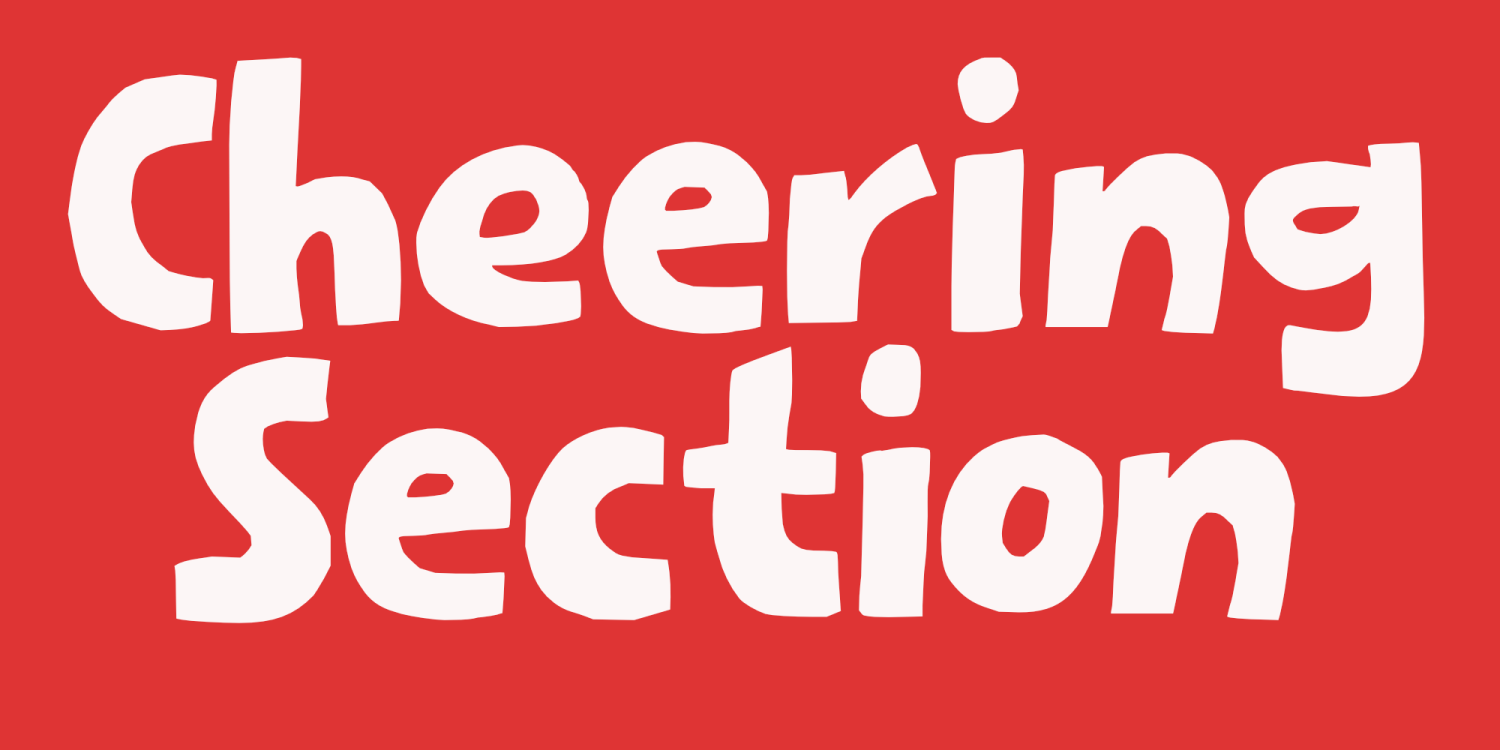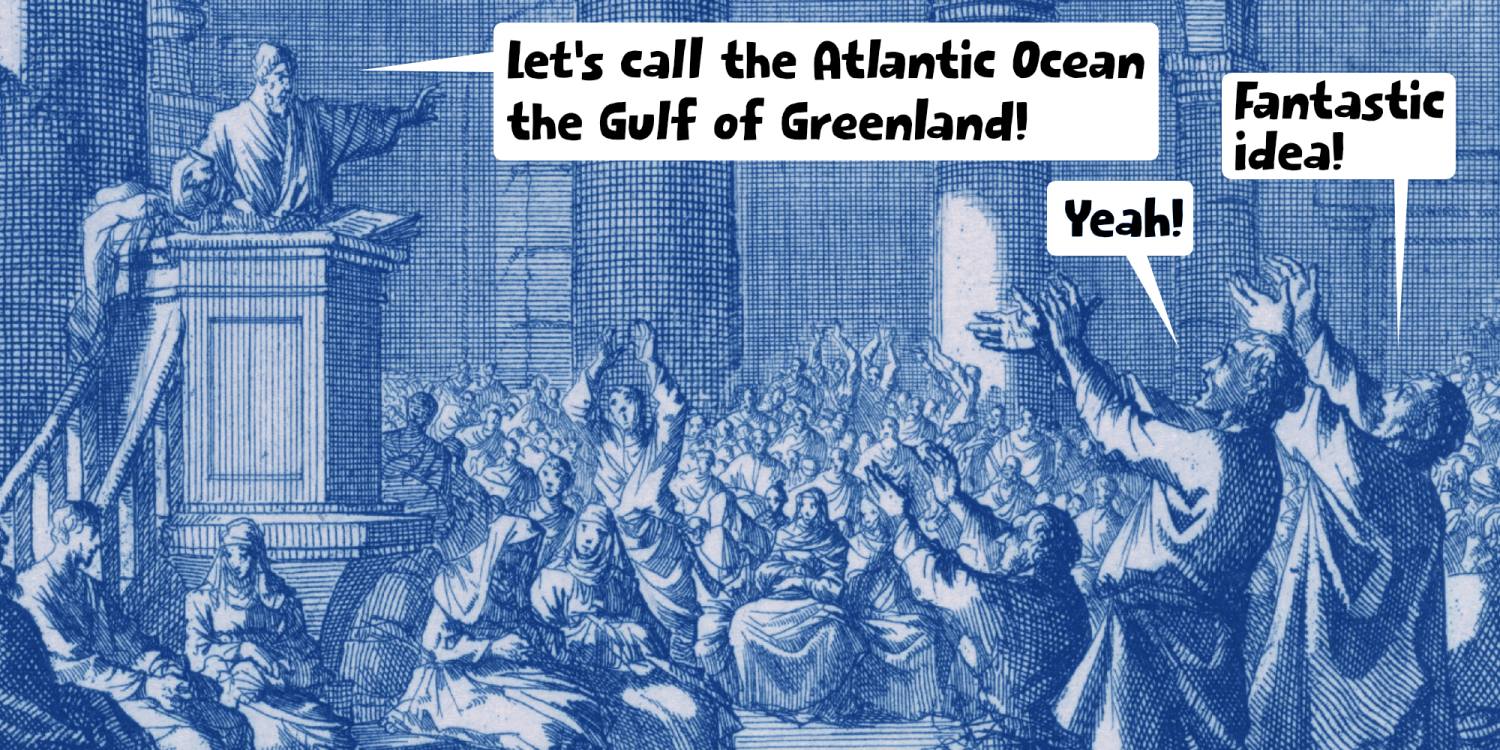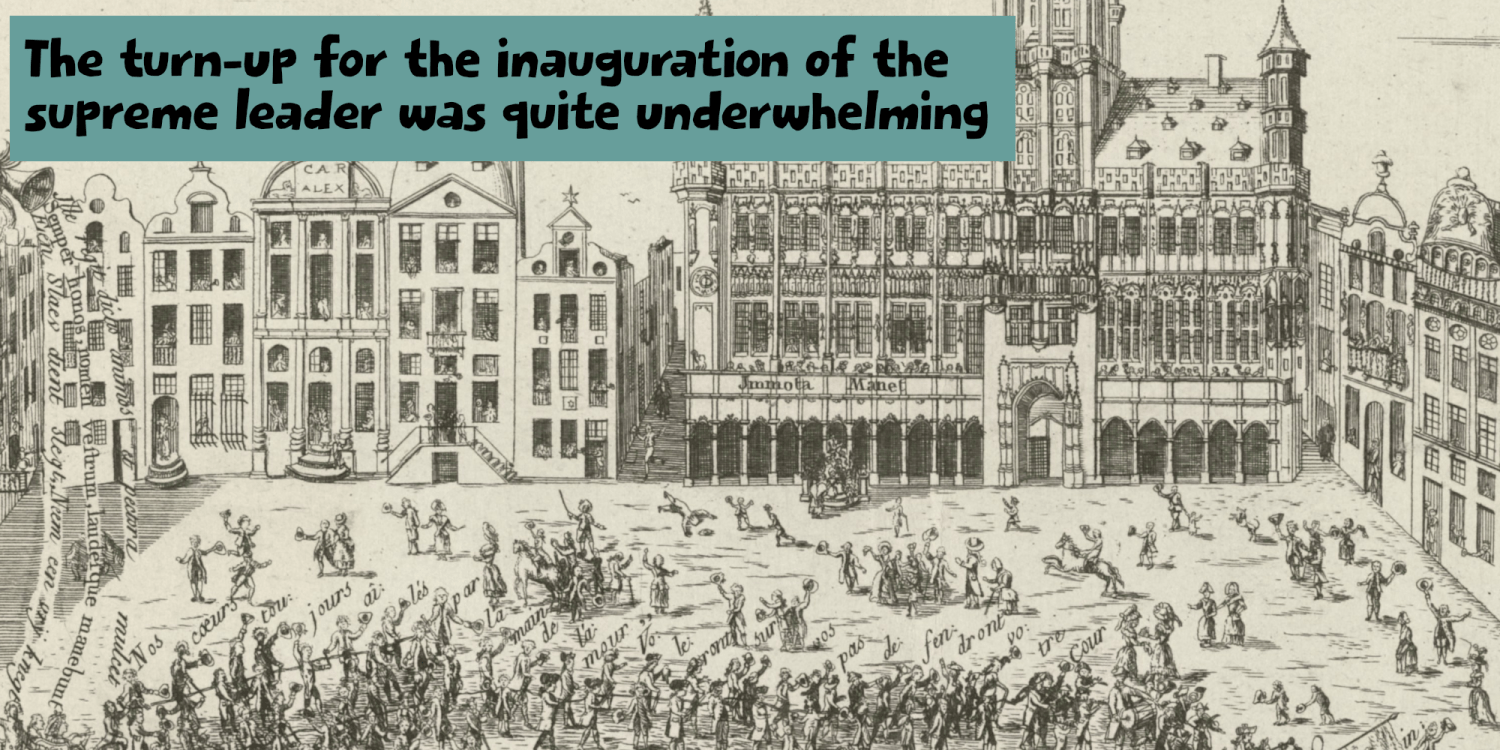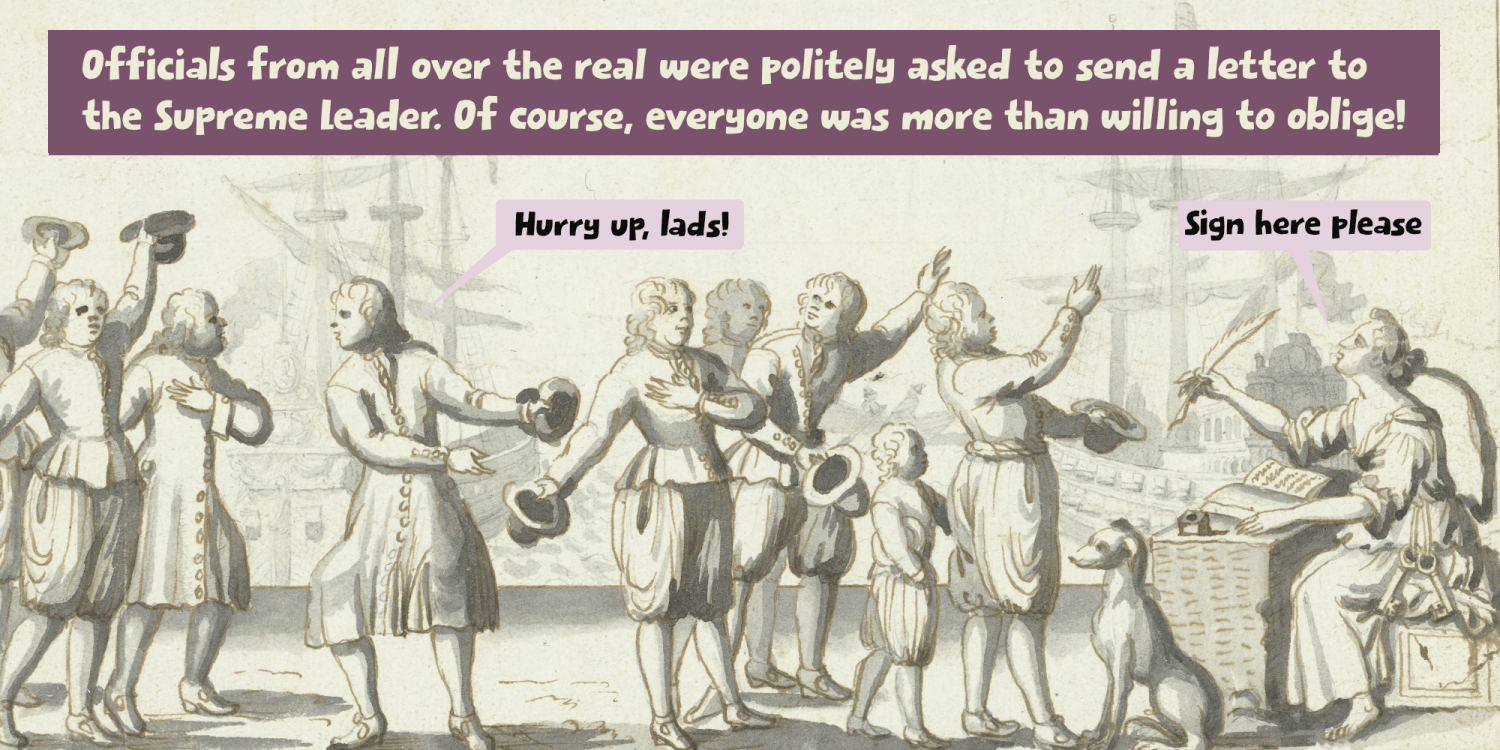
Cheering Section
Cheering Section is a really nice, handmade ‘comic style’ font. Use it for your book covers, product packaging and posters. Comes with a full set of contextual alternates that cycles as you type.